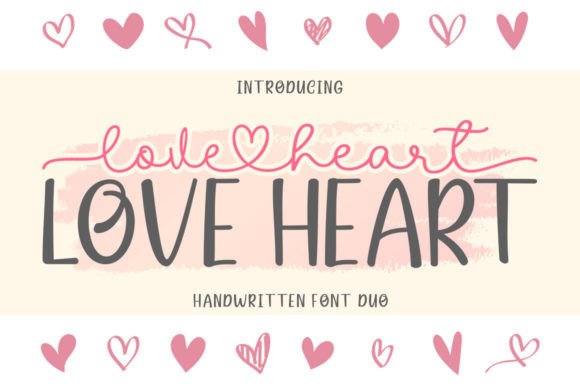
Introducing Love Heart Duo Font, the ultimate script font collection that will leave you breathless! Created by rotterlabstudio, this font duo combines a stunning handwritten signature font with an all-capital sans font, resulting in a harmonious blend of elegance and modernity.
With Love Heart, your creative possibilities are endless. Whether you're designing logos, crafting captivating magazine layouts, creating eye-catching Instagram quotes, or building a strong brand presence through advertising, this font collection is your secret weapon.
One of the standout features of Love Heart Duo Font is its PUA encoding. This means that accessing the extensive range of glyphs and ligatures is a breeze, allowing you to effortlessly add that extra touch of uniqueness to your designs.
But what makes Love Heart truly special goes beyond its technical capabilities. This font duo is infused with emotions, evoking a sense of love, passion, and authenticity. Each stroke and curve tells a story, making it the perfect choice for expressing heartfelt sentiments or adding a touch of romance to any design project.
Imagine the impact of a handwritten signature font that exudes elegance and sophistication, combined with a sans font that commands attention and delivers a bold statement. Love Heart Duo Font effortlessly captures attention, leaving a lasting impression on anyone who lays eyes on it.
Don't settle for ordinary fonts when you can have extraordinary. Step up your design game with Love Heart, and watch your creations come to life. Let your imagination run wild as you explore the endless possibilities this font duo offers.